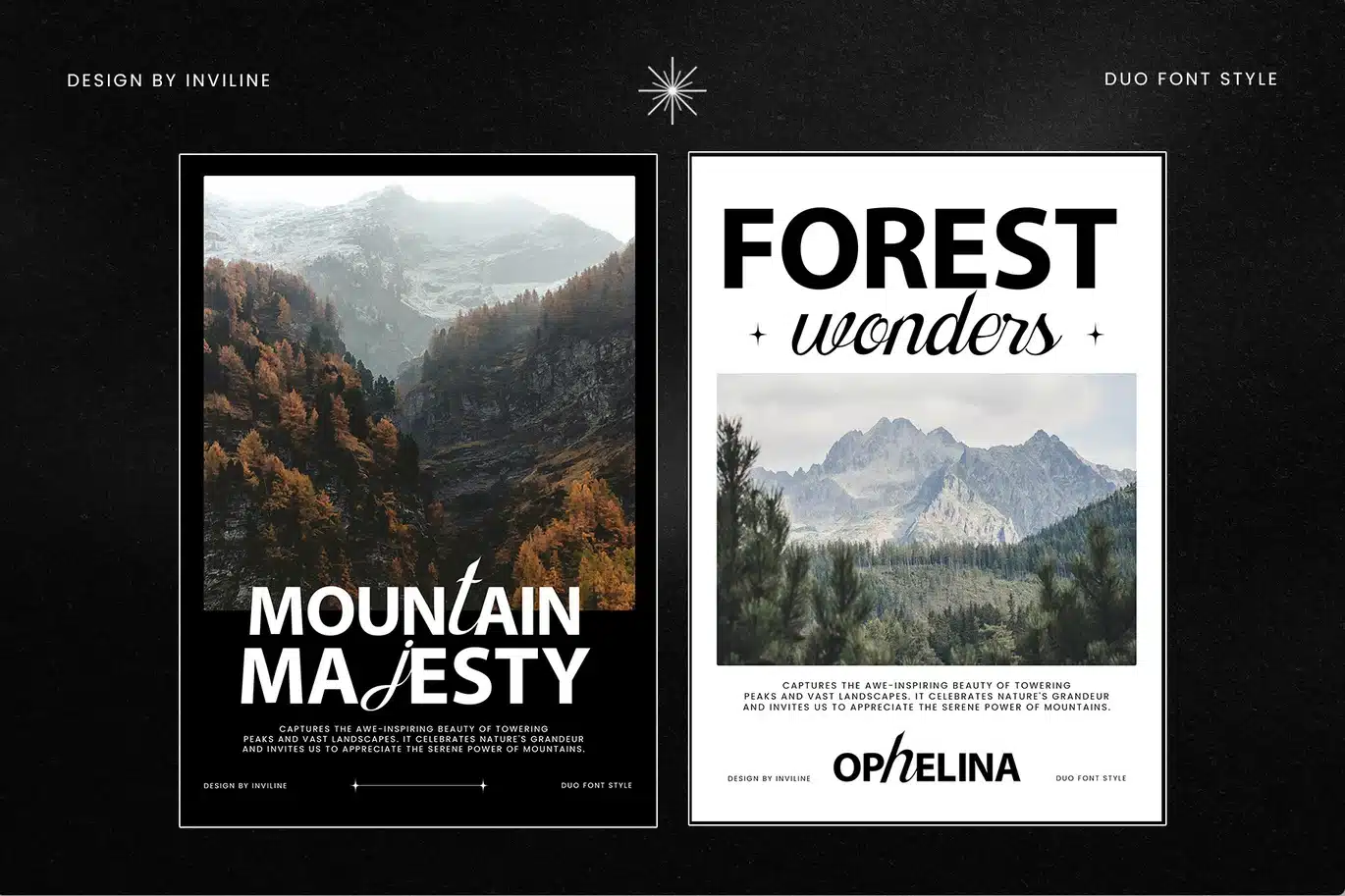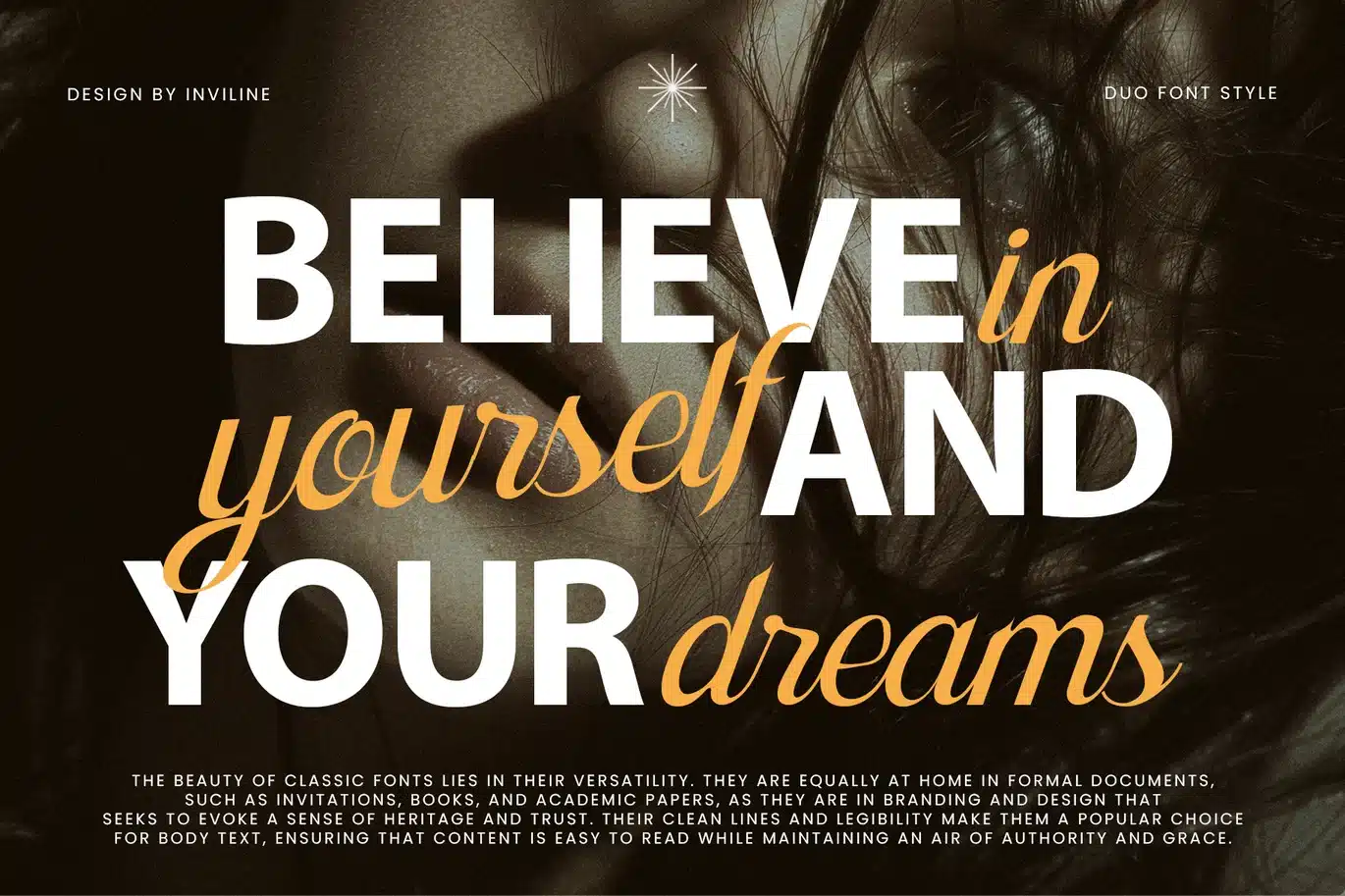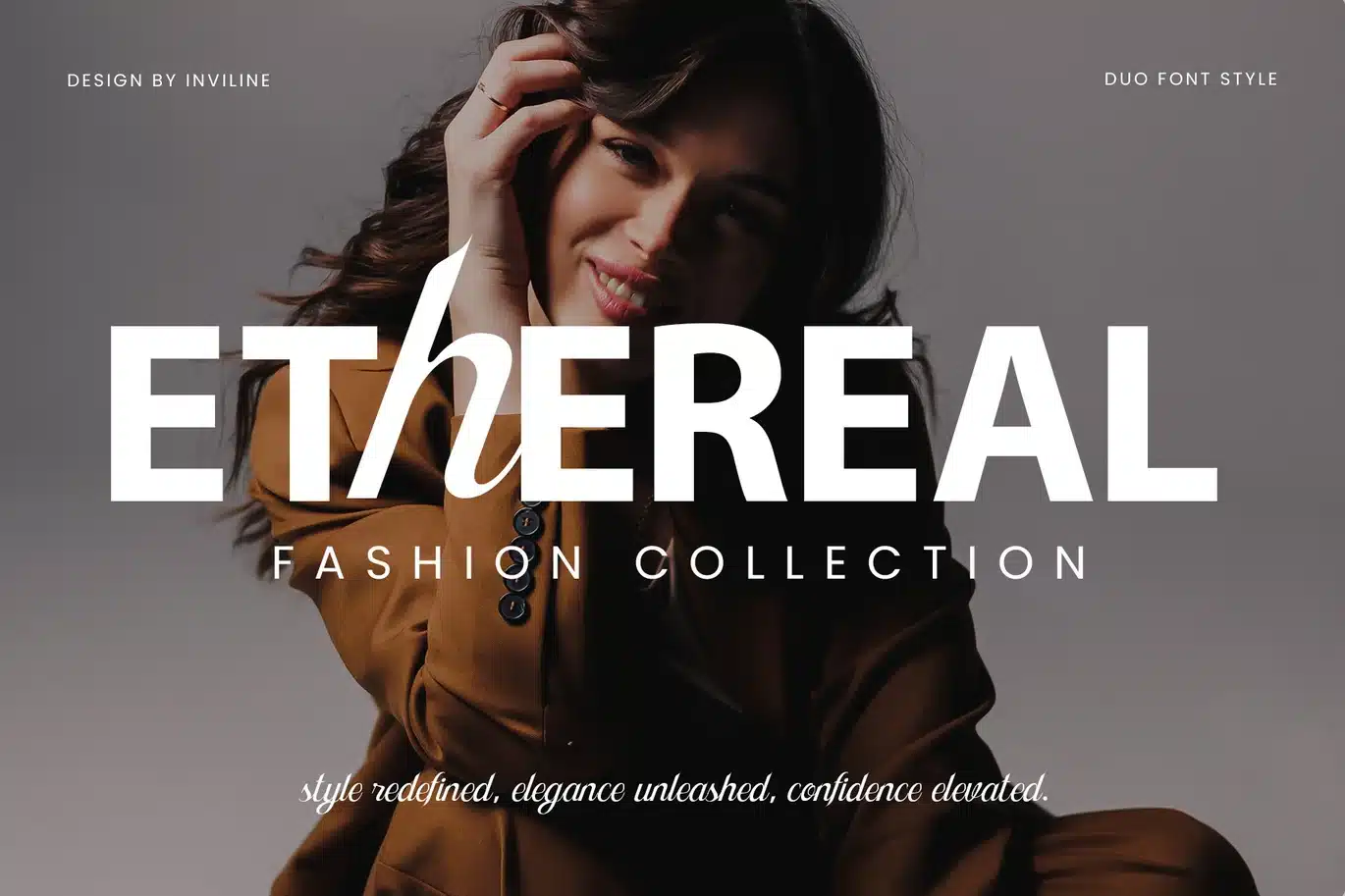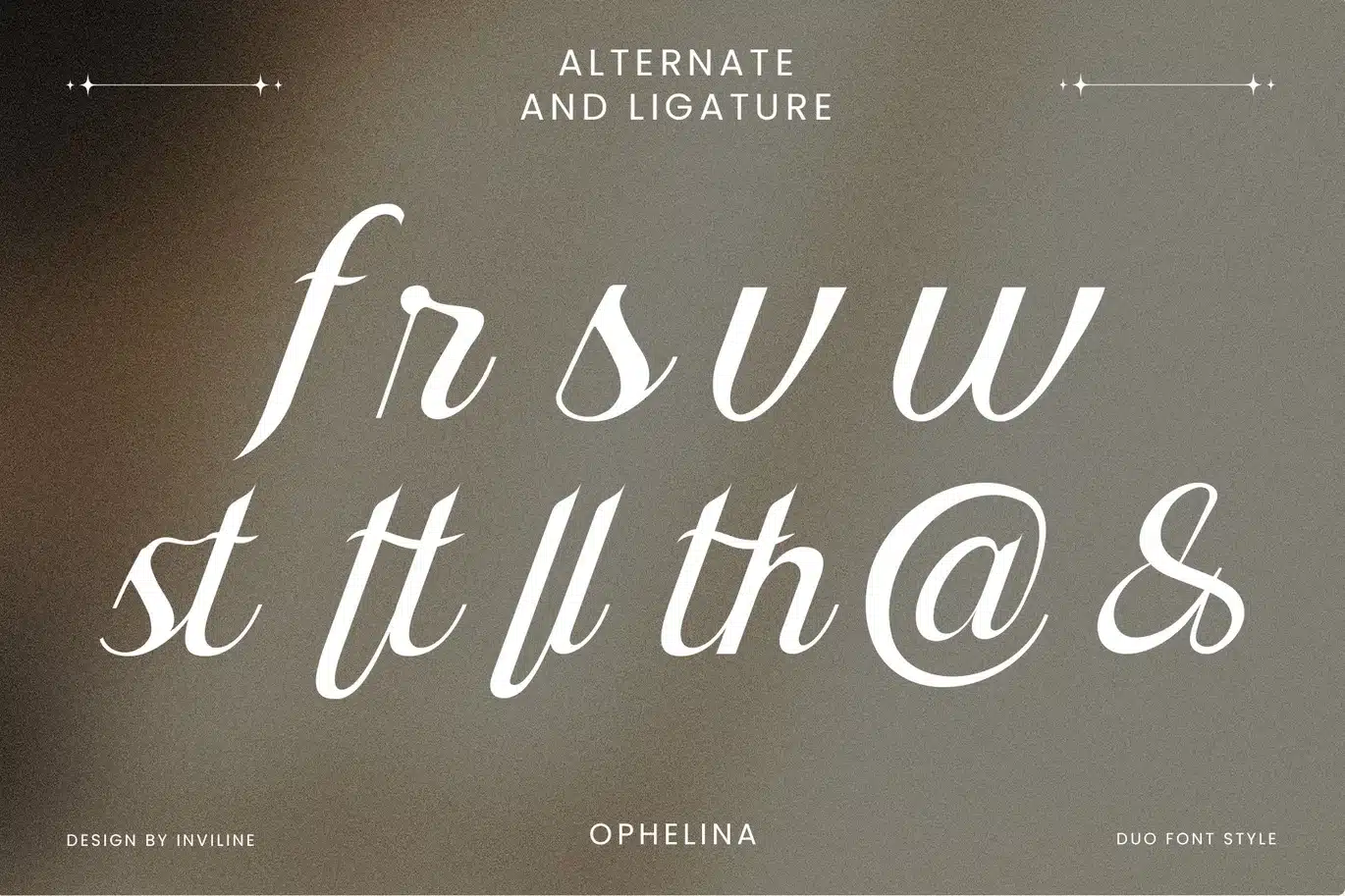
Ophelina – Duo Font
Ophelina is an elegant duo font that gracefully blends bold sans-serif uppercase letters with delicate, cursive lowercase scripts. This stylish pairing creates a harmonious contrast that’s both modern and romantic — ideal for elevating your designs with sophistication and charm.
Inspired by editorial layouts and high-end branding aesthetics, Ophelina is perfect for creators who want to mix structure and softness in a single typeface. Whether you're crafting bold headlines or subtle signatures, this duo font offers versatility and refinement in every letter.
- Duo Typeface (Sans Serif & Script)
- Uppercase (Bold Sans)
- Lowercase (Elegant Script)
- Alternates & Ligatures
- Magazine Titles & Editorial Layouts
- Branding & Visual Identity
- Packaging Design (Cosmetics, Fashion, Skincare)
- Logo & Signature Creation
- Social Media Graphics & Quote Posts
- Wedding Invitations & Stationery
- Elegant Posters or Lookbooks